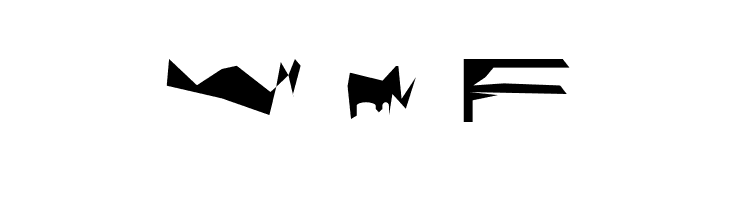
( Anthony Robinson - www.redbubble.com/people/anfa/portfolio )
( Barry Stock )
A playful, hand-drawn font with quirky, irregular shapes.
( Beraka Design - José Beraka Lobos - about.me/beraka )
A bold, graffiti-inspired font with an urban, rebellious style.
( Bethany Phipps )
A modern, outlined font with a three-dimensional effect.
( Brixdee - jack-oatley.com/ )
A pixelated, blocky font with a retro digital aesthetic.
( Brixdee - jack-oatley.com/ )
A bold, pixelated font with a retro, video game-inspired design.
( Bryan Augusto )
A futuristic, geometric font with bold, angular letterforms and unique cutouts.
( Carl Krull - www.carlkrull.dk )
A geometric, polygonal font with a modern and artistic style.
( Carlos Fabián Camargo Guerrero - www.andinistas.net )
A distressed, grungy font with chaotic, weathered characters.
( Craft Supply Co. - creativemarket.com/craftsupplyco )
A playful, handwritten font with tall, narrow letters and dynamic strokes.